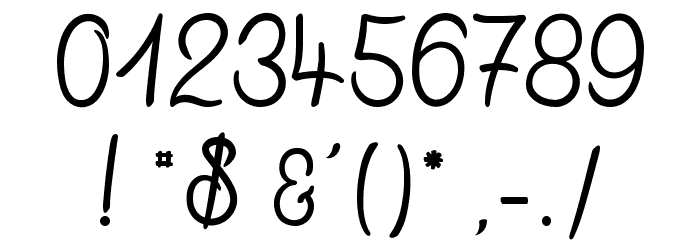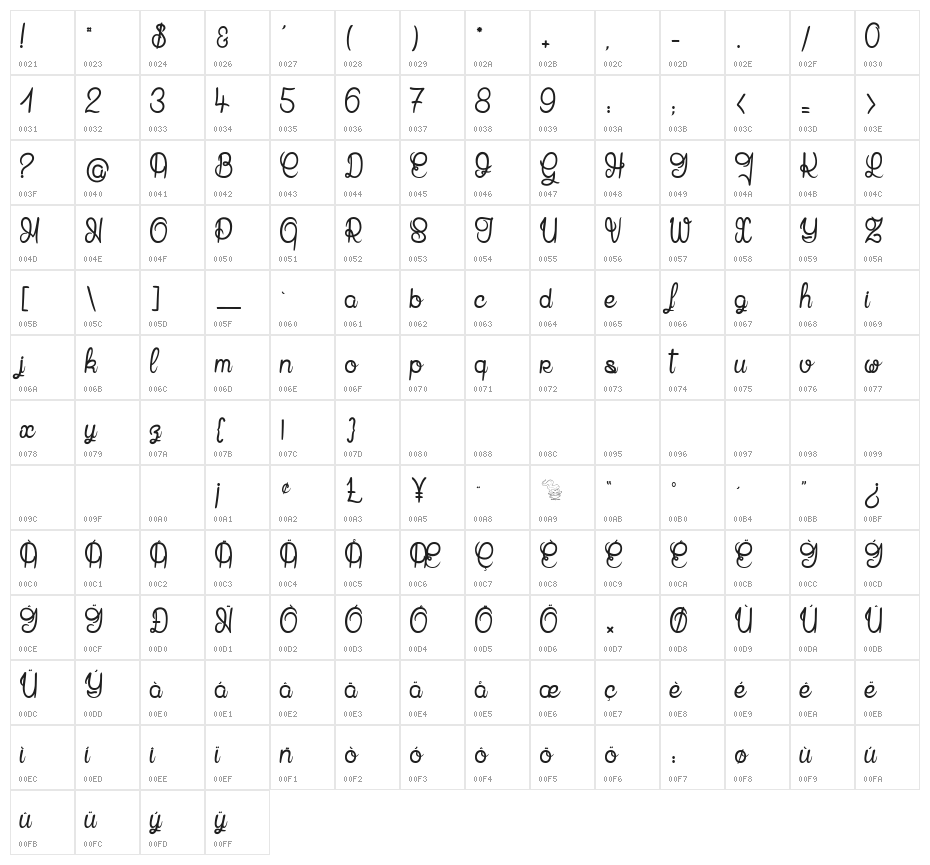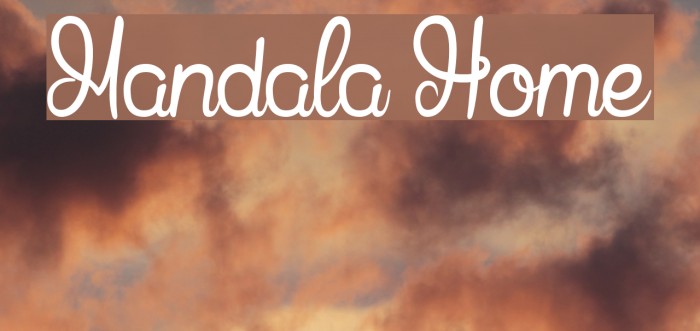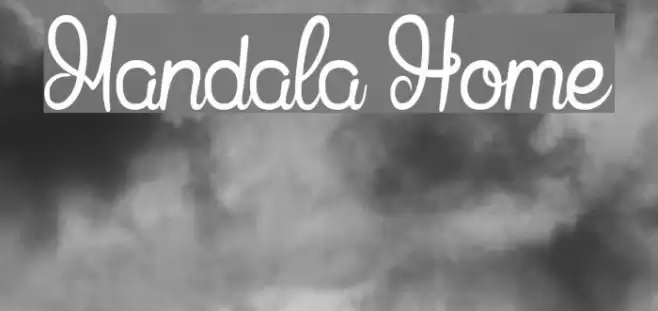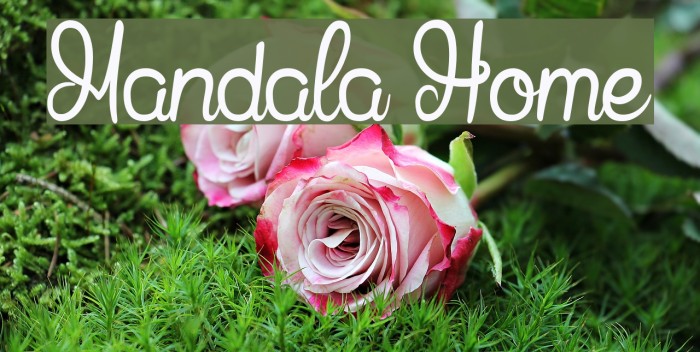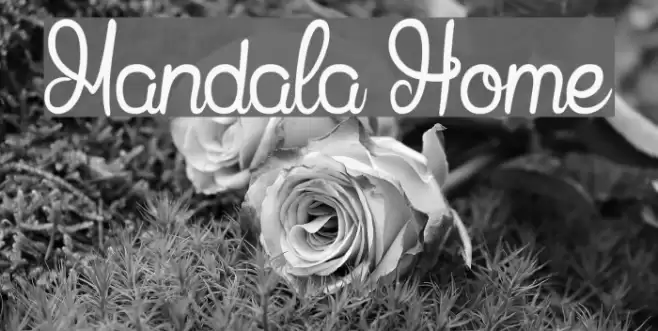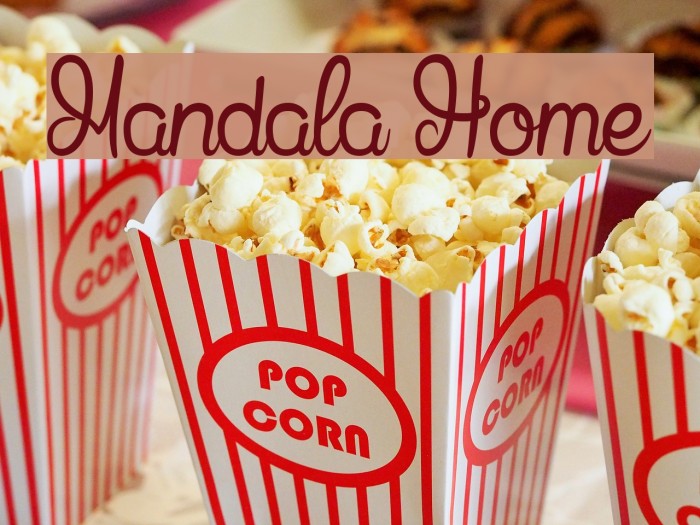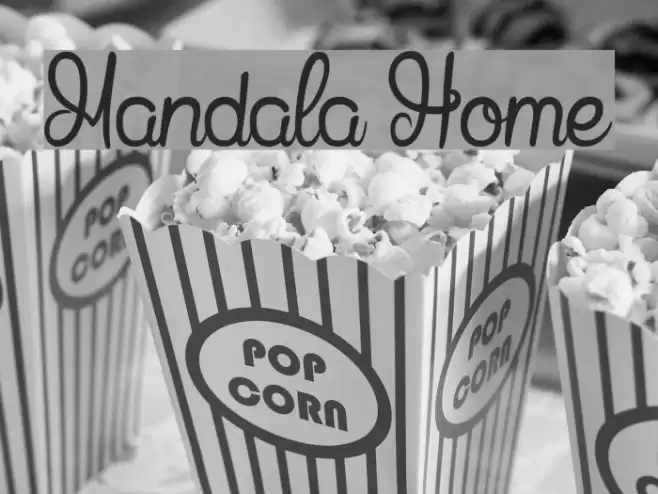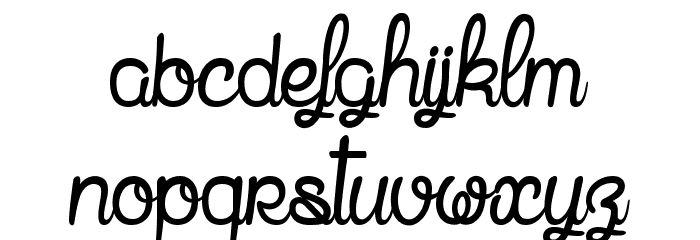
Mandala Home Font
Mandala Home Description
This font features a playful and decorative script style with a whimsical flair. The uppercase letters are characterized by their looping, interconnected strokes, giving them a lively and dynamic appearance. The lowercase letters maintain a similar style, with smooth curves and a consistent flow that enhances readability while retaining a unique charm. The numerals are rounded and follow the same playful aesthetic, making them suitable for creative and informal contexts. Special characters are designed to match the overall style, ensuring cohesion across all elements.
| Proposed Projects | Ideal for greeting cards, invitations, playful branding, and creative projects that require a whimsical touch. |